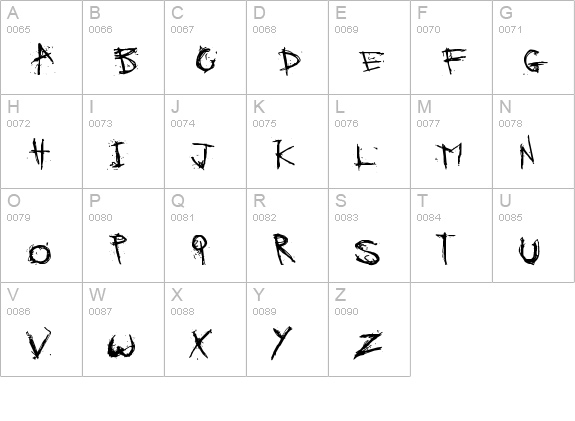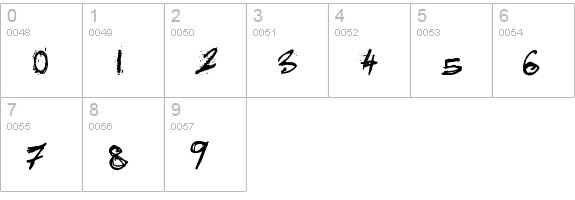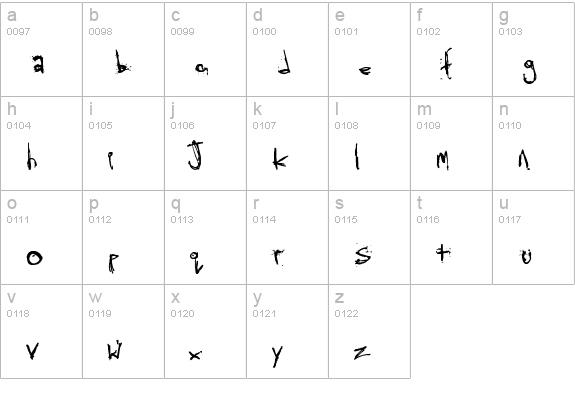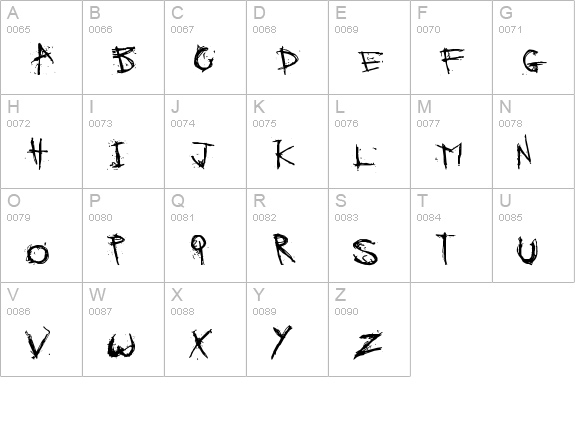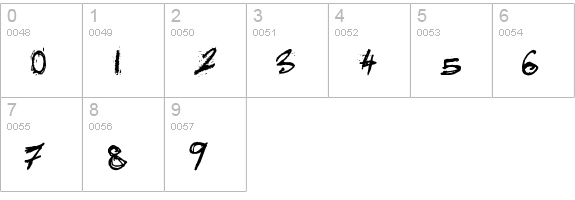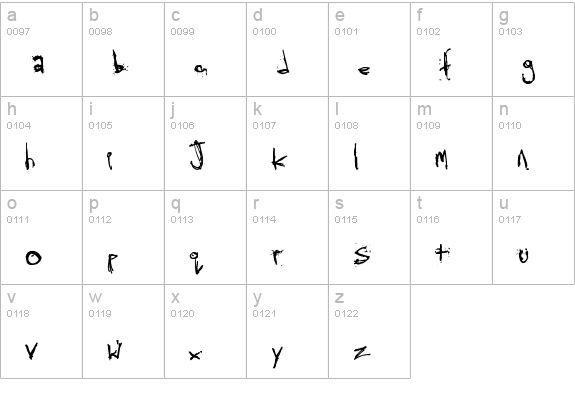
SKRATCHYthespook Font Details
Introducing SKRATCHYthespook, the font that will add a touch of eerie elegance to your designs. With its captivating and mysterious appeal, this font is perfect for all your spooky-themed projects, Halloween invitations, horror movie posters, and more. SKRATCHYthespook features a unique combination of sharp edges and intricate curves, creating a visually striking and hauntingly beautiful typeface. Its carefully crafted glyphs are designed to give your text a spine-chilling effect, while maintaining readability and legibility. But here's the best part - SKRATCHYthespook is free! That's right, you can download this captivating font at absolutely no cost from FontsMarket.com. We believe in making high-quality fonts accessible to all, and SKRATCHYthespook is no exception. Whether you're a professional designer or a creative enthusiast, SKRATCHYthespook will take your projects to the next level. Its versatility allows it to be used in a variety of design applications, from branding and logo design to social media graphics and website headers. So, why wait? Download SKRATCHYthespook today and let your imagination run wild. Unleash the spookiness and creativity in your designs with this incredible free font. Don't miss out on this opportunity to add a touch of spectral sophistication to your projects. Get your hands on SKRATCHYthespook now, exclusively at FontsMarket.com.